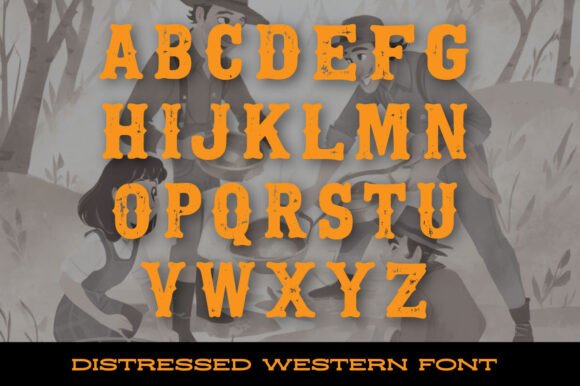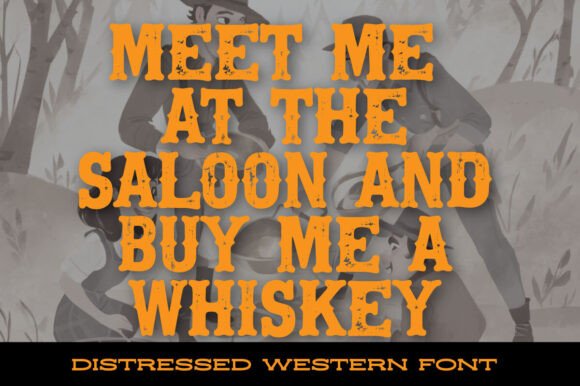
Introduction to Goldpan Font Font
Fonts play a crucial role in design, and the Goldpan Font font is a typeface that brings both character and versatility to any project. Whether you’re working on a branding project, a website, or a print design, the Goldpan Font font offers a unique style that can elevate your work.
Goldpan is a vintage-inspired Old West-style font that captures the rugged charm of a bygone era.
With its distressed textures and rounded serifs, this font evokes the spirit of gold rush towns, saloon signs, and frontier adventures Perfect for Western-themed designs, rustic branding, or any project that needs a touch of historical grit, Goldpan delivers character and authenticity in every letter.
Key Features of Goldpan Font Font
Why Choose Goldpan Font Font?
The Goldpan Font font is more than just a typeface – it’s a design tool that helps you communicate your message with style and clarity. Its unique character set and versatile design make it suitable for a wide range of applications, from elegant invitations to bold headlines.
With its carefully crafted letterforms and balanced proportions, the Goldpan Font font ensures readability and visual appeal across all mediums.
What makes Goldpan Font font special?
The Goldpan Font font stands out with its unique design, exceptional readability, and versatility across various design applications.